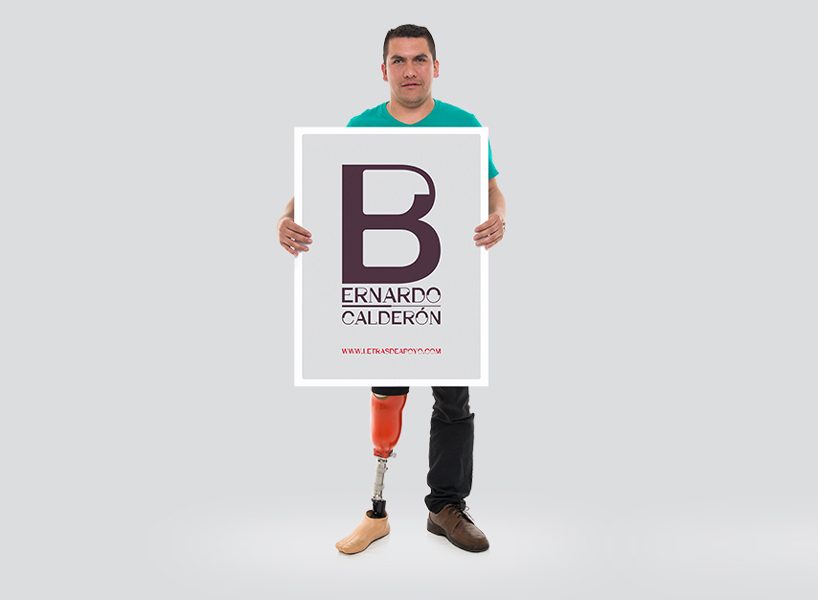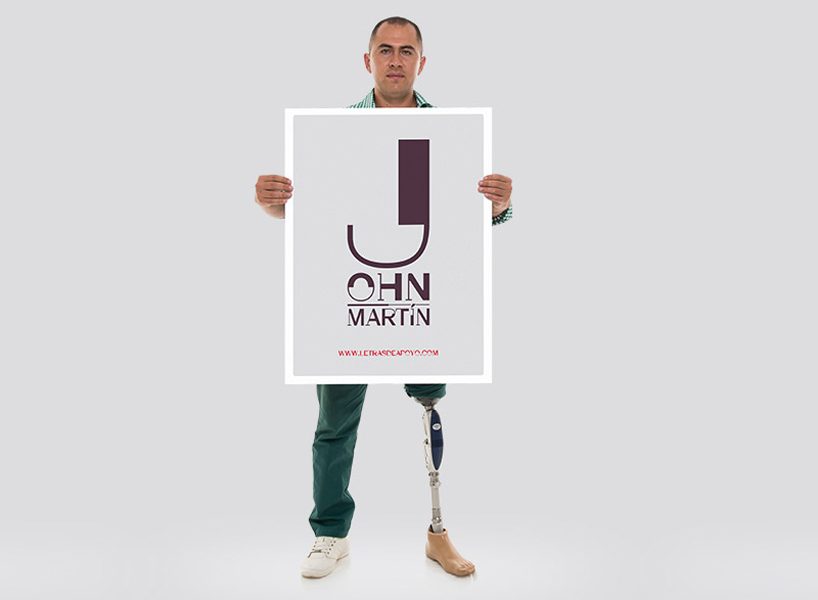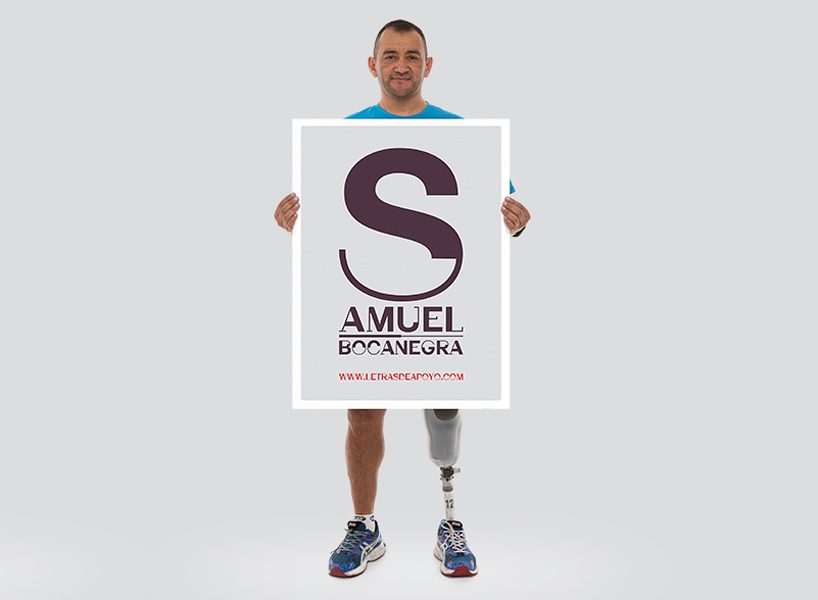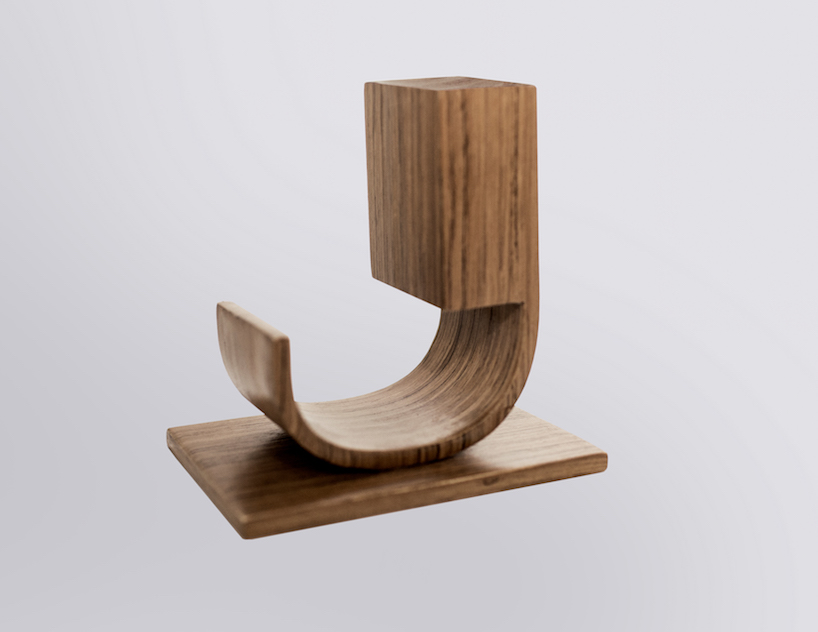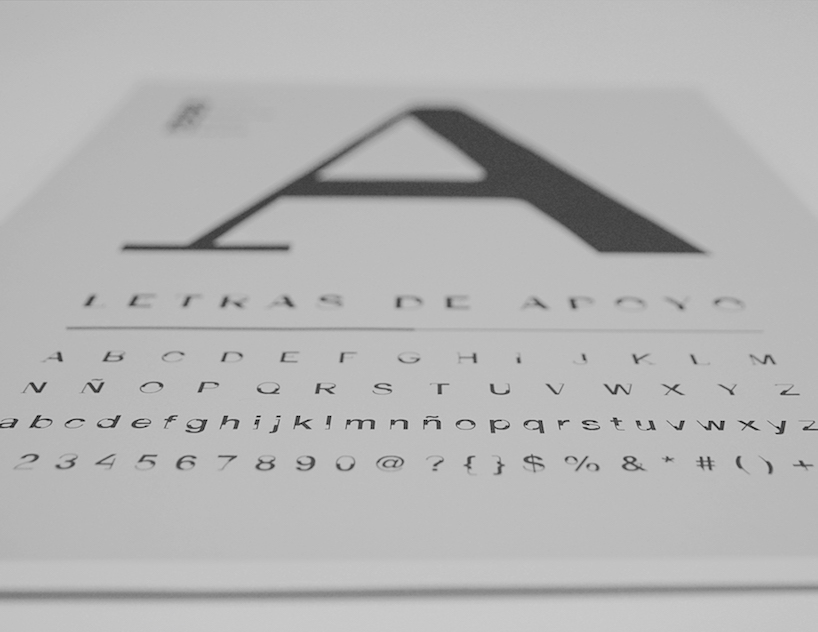
‘help font’ typography pays homage to colombian landmine victims
featured in a special issue where the headlines and logos are written using ‘help font 1’, semana magazine’s typography essentially incorporates the movement of prosthetic limbs in its font.
semana, one of colombia’s most popular magazines, honors the thousands of victims affected by landmines in its recent typography campaign, ‘help font ‘. according to the publication, the problem has never received the attention it deserves from the government or the media, making most people unaware of the gravity of the situation.
using the power of art to elicit change, semana magazine’s typography essentially incorporates the movement of prosthetic limbs in its font. the typeface is featured in a special issue where the headlines and logos are written using ‘help font’ including stories, maps, statistics and broad editorial content on landmines in colombia.
the typography pays homage the landmine victims of colombia
a landmine survivor holding an image of the typeface
the font is featured in a special issue of semana magazine
a physical wooden prototype of the typeface
the characters written in ‘help font’